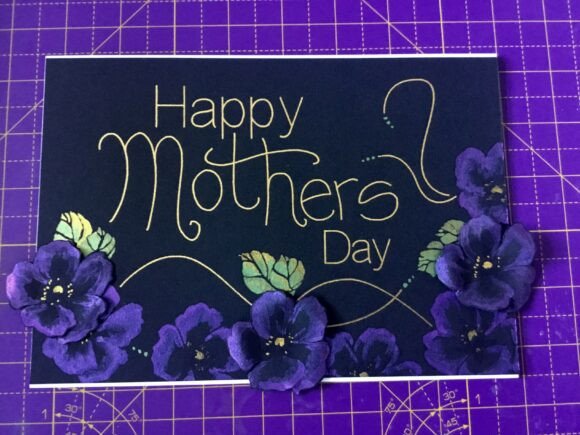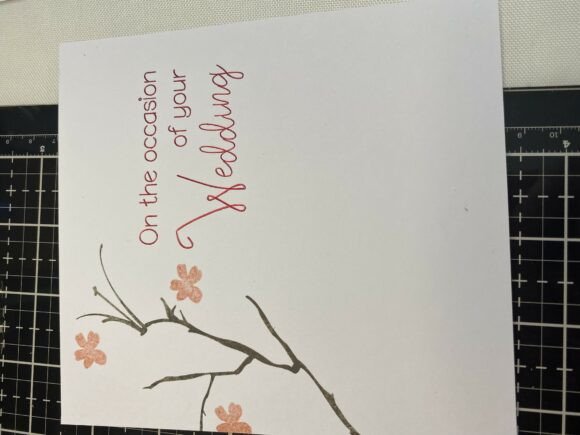
Introduction to Scripty Font
Have you ever been working on a creative project, pouring your heart and soul into every detail, only to find the perfect finishing touch is just out of reach? That’s where the Scripty Font comes in – a stunning single-line style font that adds an unparalleled touch of elegance to your designs. Whether you’re crafting a beautiful wedding invitation, a heartfelt birthday card, or a bespoke gift, Scripty Font is the perfect design resource to elevate your creations.
As a designer, you’re always on the lookout for high-quality tools that can help you stand out from the crowd. Scripty Font delivers, with its unique handwritten appeal and versatility that makes it perfect for foiling, embossing, and drawing with plotters and cutters. Plus, with its transparent background, you can easily combine it with other design elements to create something truly special.
Key Features of Scripty Font
- High-quality, hand-drawn design ideal for creative projects, making it a valuable design resource.
- Transparent background option allows for seamless integration with various design elements and backgrounds.
- Comes in a single font size, making it easy to use in various design contexts, from small text to large headings.
- Features a high-resolution design (300 DPI) suitable for printing and digital use, ensuring crisp and clear typography.
- Unique, cursive script style that adds a touch of elegance and sophistication to any design, making it perfect for creative projects.
- Supports various languages, including Latin, making it a versatile design resource for global creative projects.
Honest Review: Scripty Font
As a designer, I’m always on the lookout for high-quality design resources to elevate my creative projects. Recently, I came across the Scripty Font, and I must say it’s been a game-changer for my designs.
- ✨ Unique, hand-written feel that adds a personal touch to my designs
- ✨ High-quality fonts that are perfect for logos, titles, and other display typography
- ✨ Transparent background option, allowing for easy customization and integration with other design elements
- ⚠️ Limited font weights and styles, which can make it difficult to achieve a consistent look across different design elements
- ⚠️ Some characters may not be compatible with certain fonts or design software, which can lead to unexpected results
Overall, I’m thoroughly impressed with the Scripty Font. It’s a fantastic addition to any designer’s toolkit, and I would highly recommend it for any creative project. With its unique feel and high-quality fonts, it’s sure to elevate your designs and make them stand out.
Scripty Font: A Design Resource for Creative Projects
Getting Started with Scripty Font
Tips for Getting the Most Out of Scripty Font
Here are some tips for getting the most out of Scripty Font: use it sparingly to add emphasis, experiment with different font sizes and styles, and combine it with other design elements to create a unique look.
Common Use Cases for Scripty Font
Scripty Font is perfect for creative projects such as wedding invitations, social media graphics, and advertising materials. Its high-quality design and transparent background make it an excellent choice for any design project.